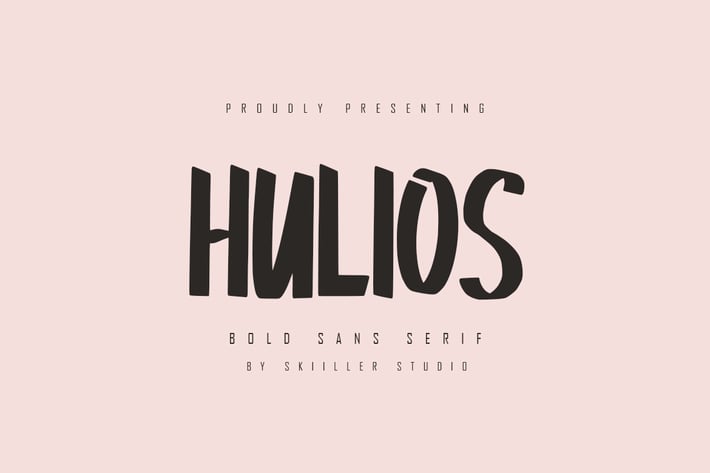
Hulios - Bold Sans Serif Font
Hulios is a natural display handwritten font with an regular base line. Suitable for use in title design. Such as clothing, covers, book titles, films, quotes, branding, logos, greeting cards, t-shirts, packaging designs, posters, and others.